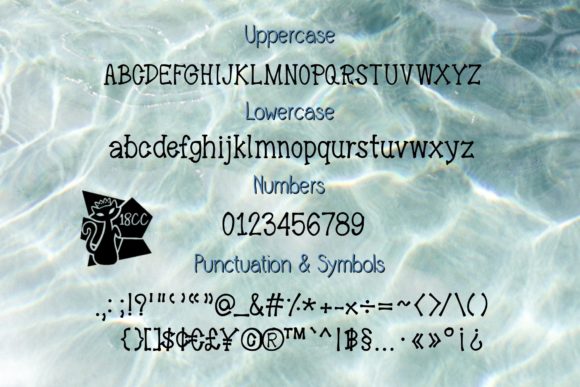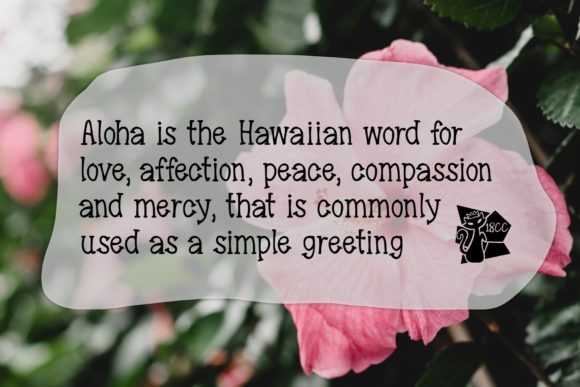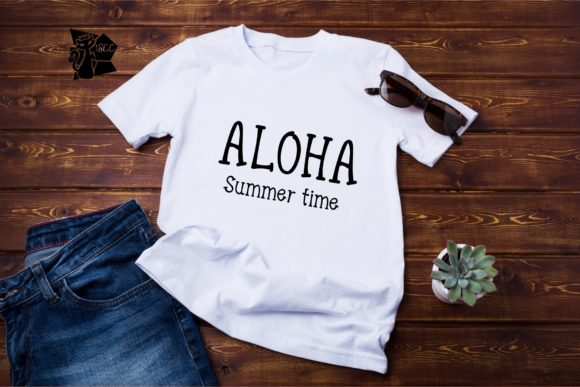
Aloha Font: The Perfect Choice for Designers and Crafters
Aloha Font is a cool and quirky display font that has been making waves in the design community. Whether you’re using it for crafting, digital designing, presentations, or greeting cards making, it’s the perfect choice. In this article, we’ll dive into the world of Aloha Font and explore its features, benefits, and uses.
What is Aloha Font?
Aloha Font is a unique and eye-catching display font that is designed to add a touch of personality to your designs. Its quirky and playful style makes it perfect for a variety of projects, from digital designs to handmade crafts. The font is highly versatile and can be used for a range of applications, including titles, headings, and short texts.
Features of Aloha Font
- Unique and Quirky Style: Aloha Font has a one-of-a-kind style that sets it apart from other fonts. Its quirky and playful design makes it perfect for adding a touch of personality to your designs.
- Highly Versatile: Aloha Font is highly versatile and can be used for a range of applications, including digital designs, handmade crafts, presentations, and greeting cards.
- Easily Readable: Despite its quirky style, Aloha Font is easily readable, making it perfect for use in titles, headings, and short texts.
- Perfect for Crafting: Aloha Font is a popular choice among crafters, particularly those who enjoy making handmade cards, scrapbooking, and other paper crafts.
Benefits of Using Aloha Font
So, why should you choose Aloha Font for your next project? Here are just a few benefits of using this amazing font:
- Adds Personality to Your Designs: Aloha Font adds a touch of personality to your designs, making them stand out from the crowd.
- Increases Engagement: The quirky and playful style of Aloha Font can help increase engagement with your audience, particularly in digital designs and presentations.
- Perfect for Branding: Aloha Font can be used to create a unique and memorable brand identity, particularly for businesses that want to stand out from the competition.
Uses of Aloha Font
Aloha Font is a versatile font that can be used for a range of applications, including:
- Digital Designing: Aloha Font is perfect for use in digital designs, such as social media graphics, blog posts, and website headers.
- Crafting: Aloha Font is a popular choice among crafters, particularly those who enjoy making handmade cards, scrapbooking, and other paper crafts.
- Presentations: Aloha Font can be used to add a touch of personality to presentations, making them more engaging and memorable.
- Greeting Cards Making: Aloha Font is perfect for use in greeting cards, particularly those that require a touch of personality and whimsy.
Tips for Using Aloha Font
Here are a few tips for using Aloha Font effectively:
- Use it Sparingly: Aloha Font is a bold and eye-catching font, so use it sparingly to avoid overwhelming your designs.
- Pair it with Other Fonts: Aloha Font can be paired with other fonts to create a unique and memorable design.
- Experiment with Colors: Aloha Font looks great in a range of colors, so experiment with different colors to find the one that works best for your design.
Aloha Font is a cool and quirky display font that is perfect for designers and crafters. Its unique and eye-catching style makes it perfect for adding a touch of personality to your designs. With its highly versatile design, Aloha Font can be used for a range of applications, from digital designs to handmade crafts. So, why not give Aloha Font a try and see how it can elevate your designs?